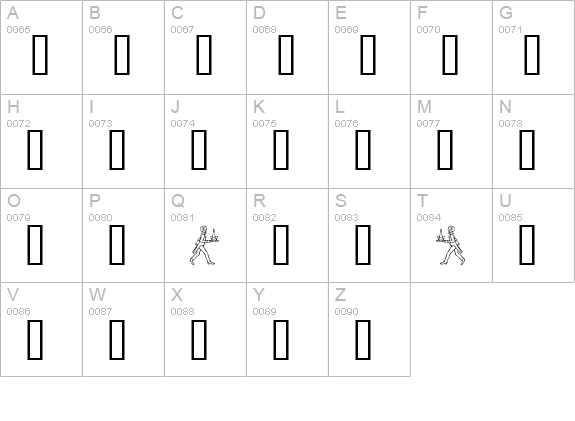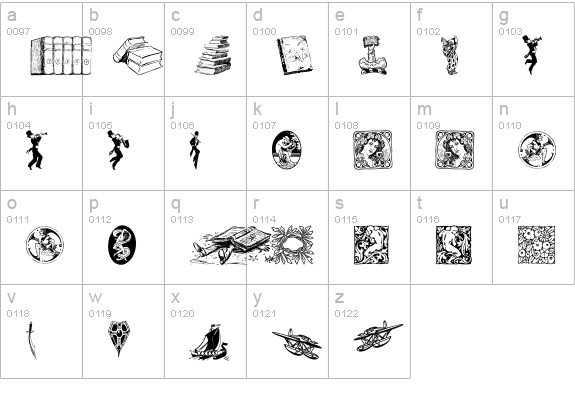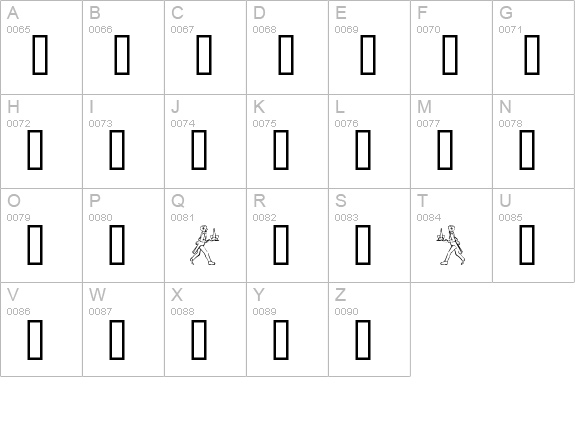
Listemagerens Ny Dingbats Font Details
Listemagerens Ny Dingbats is a whimsical and versatile font that adds a touch of playfulness to any design project. With its unique collection of symbols, icons, and decorative elements, this font is perfect for creating eye-catching graphics, invitations, posters, and more. Whether you're looking to add a pop of creativity to your next project or simply want to have fun with typography, Listemagerens Ny Dingbats has you covered. What's even better is that Listemagerens Ny Dingbats is available for free download at FontsMarket.com. So go ahead and unleash your creativity with this charming and delightful font.